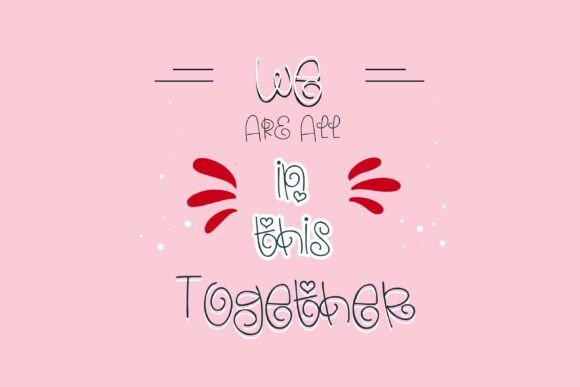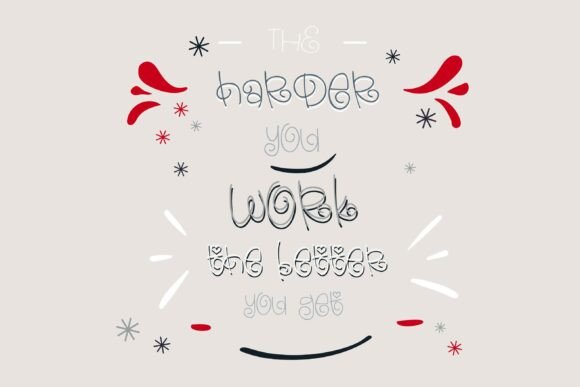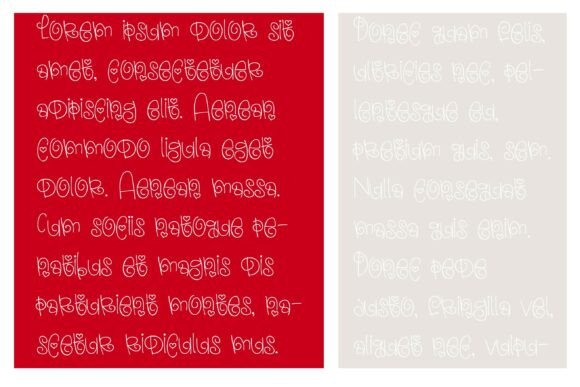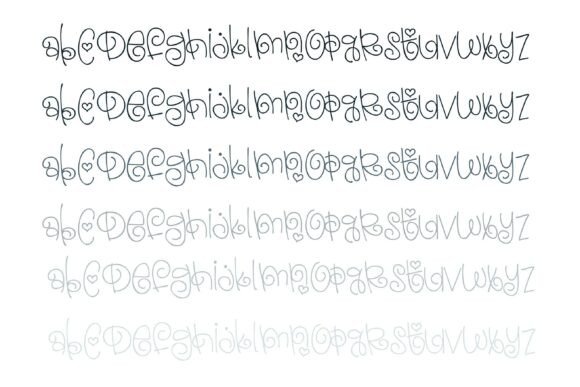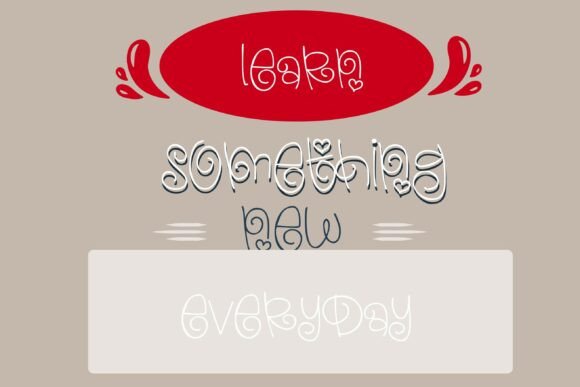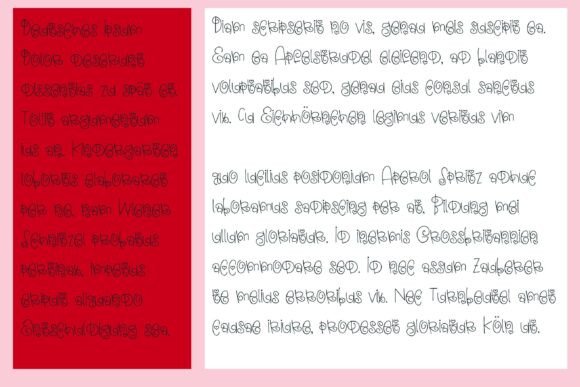
Introduction to Greatest Girlfriend Font
Greatest Girlfriend: Swirly, Girly, and Full of Joy Celebrate sweetness with Greatest Girlfriend font, a decorative masterpiece that feels like the ultimate doodle in the margin of a love note.
This Greatest Girlfriend typeface is defined by its thin, elegant linework and its exaggerated, circular curls Each letter is treated like a tiny piece of jewelry, adorned with loops and delicate hearts that dance across the baseline.
Key Features of Greatest Girlfriend Font
Why Choose Greatest Girlfriend Font?